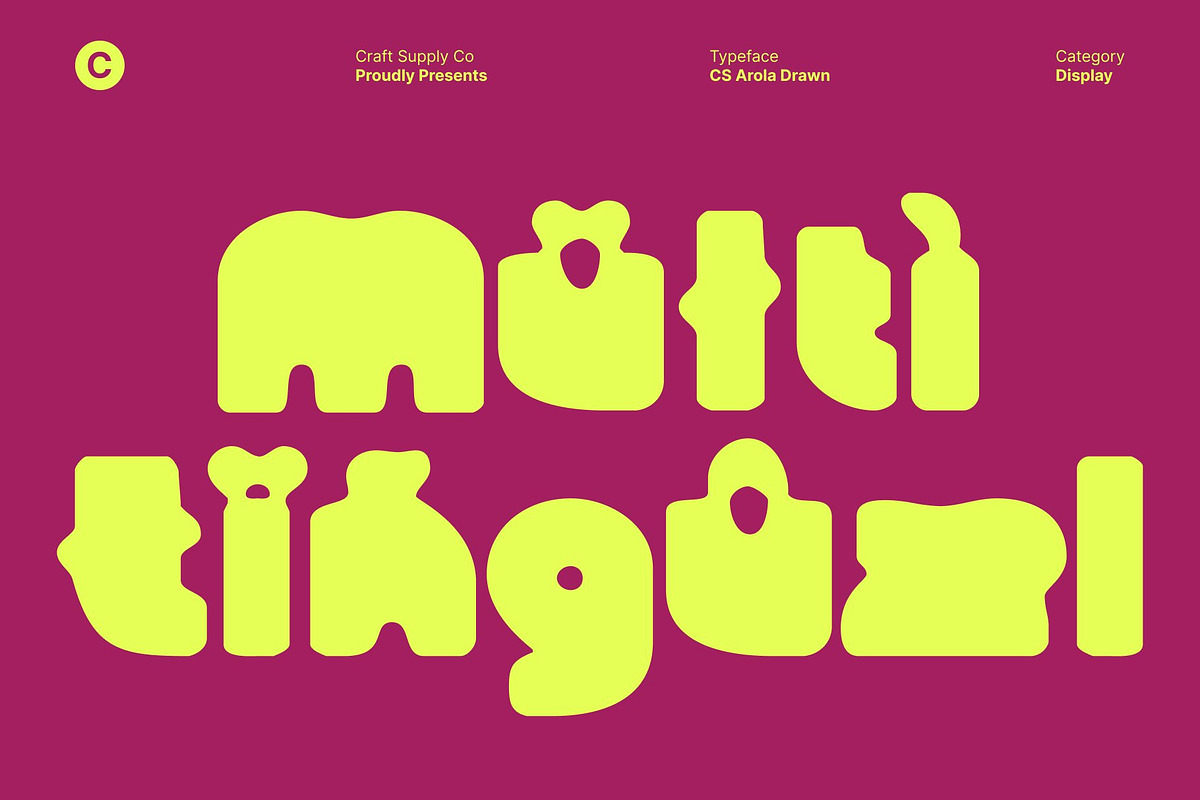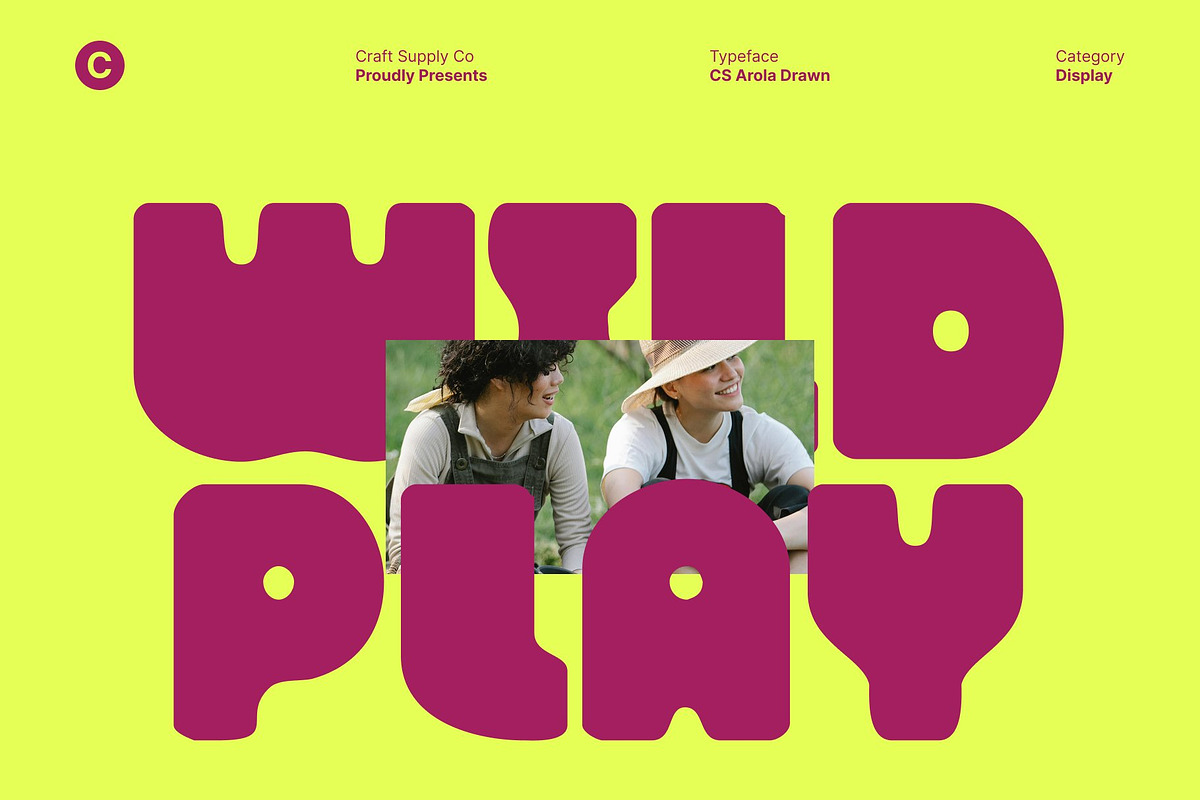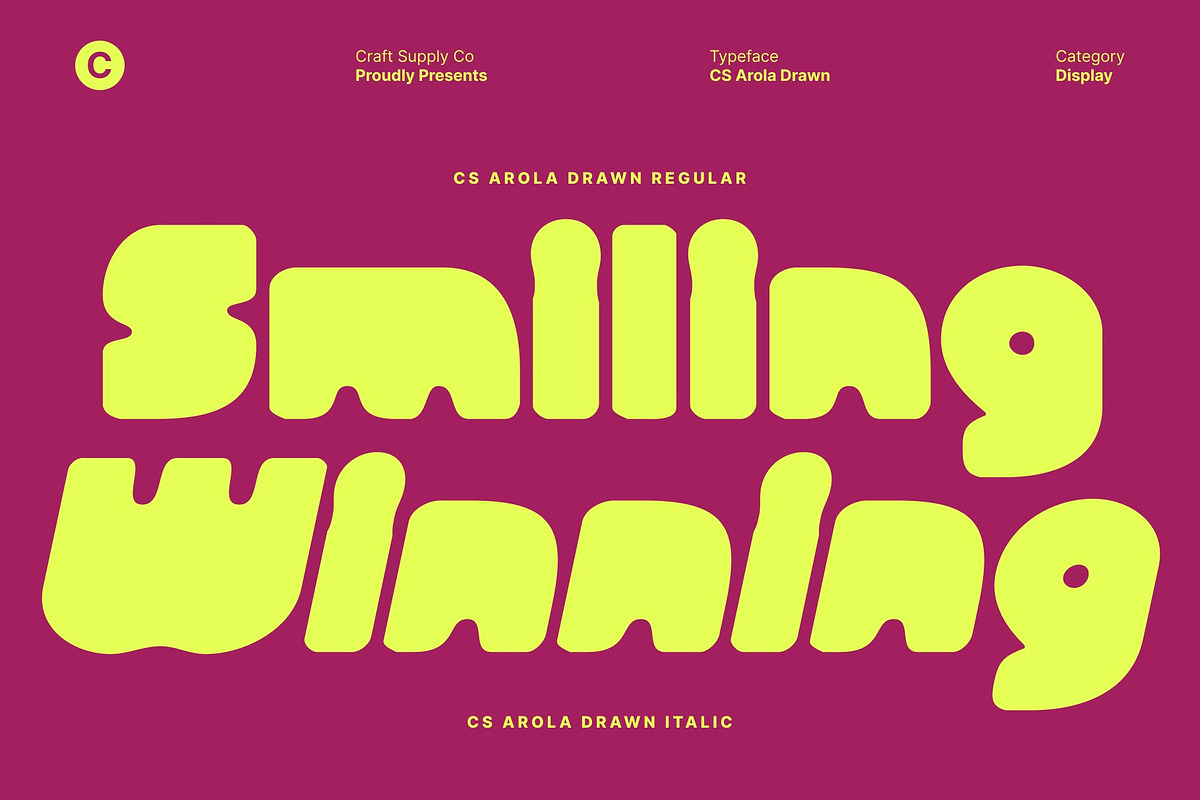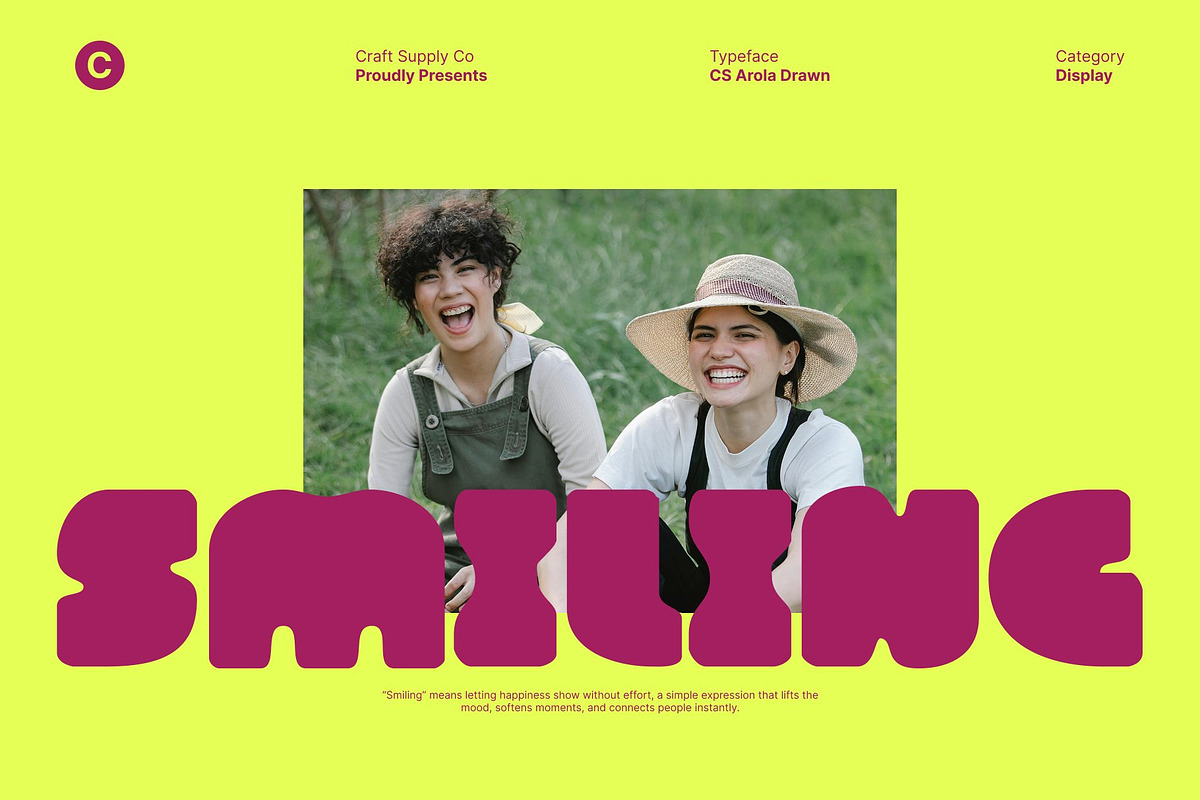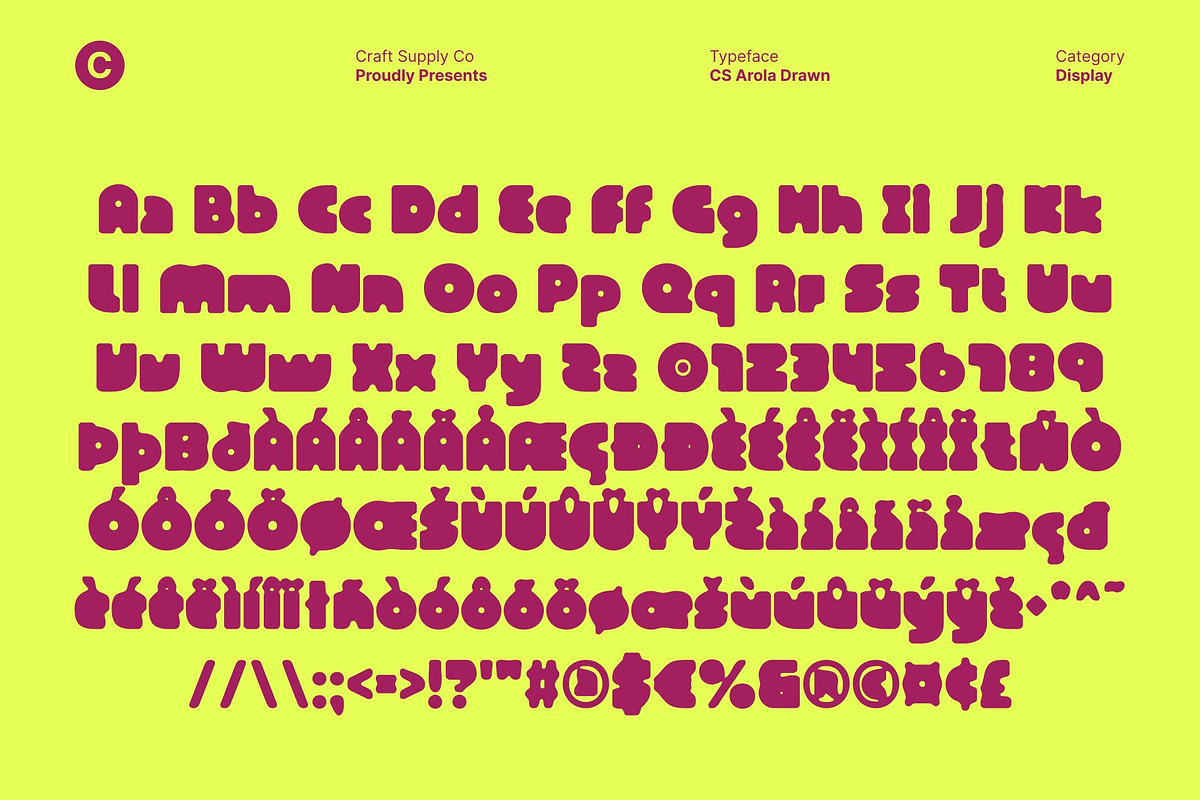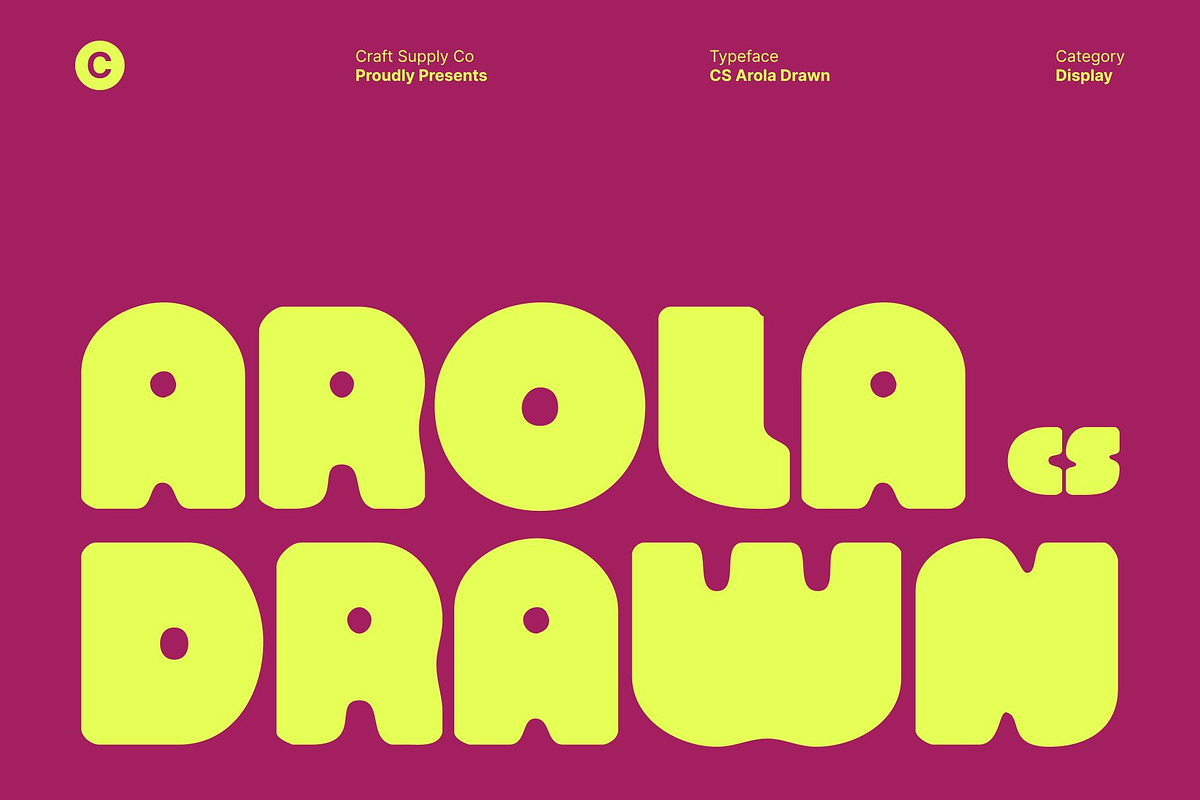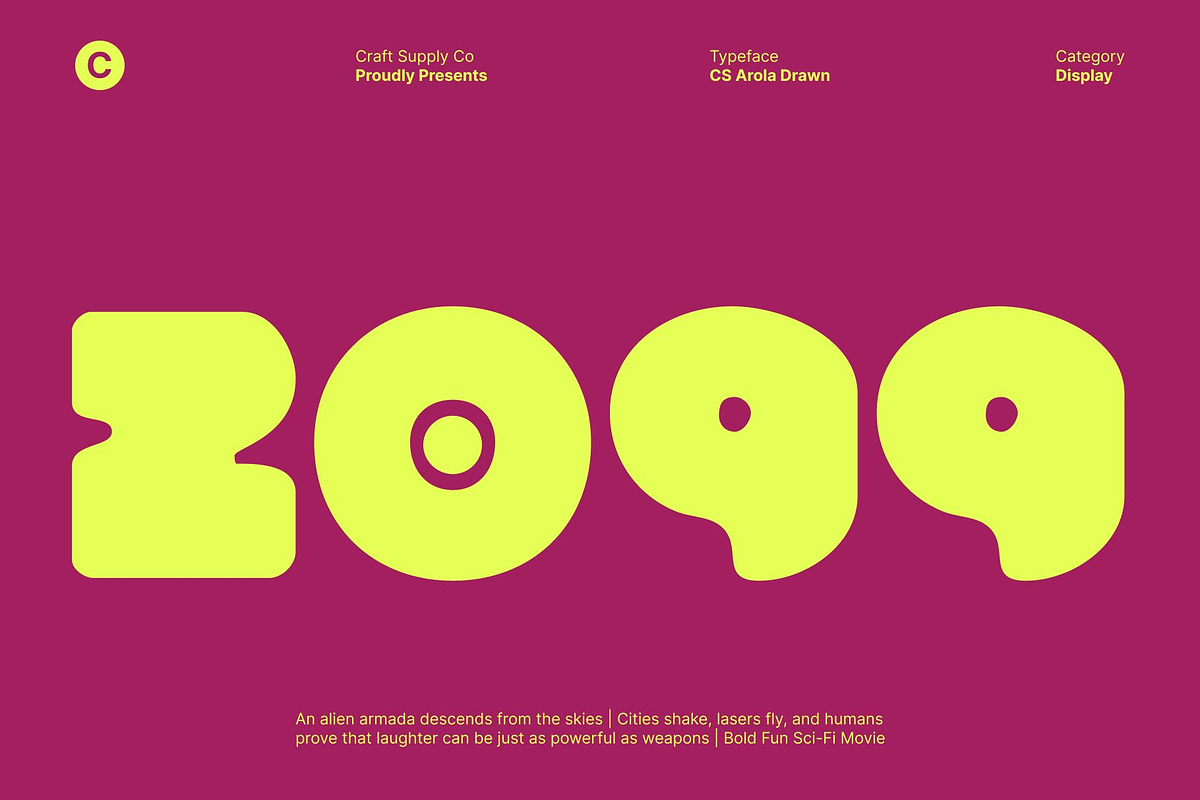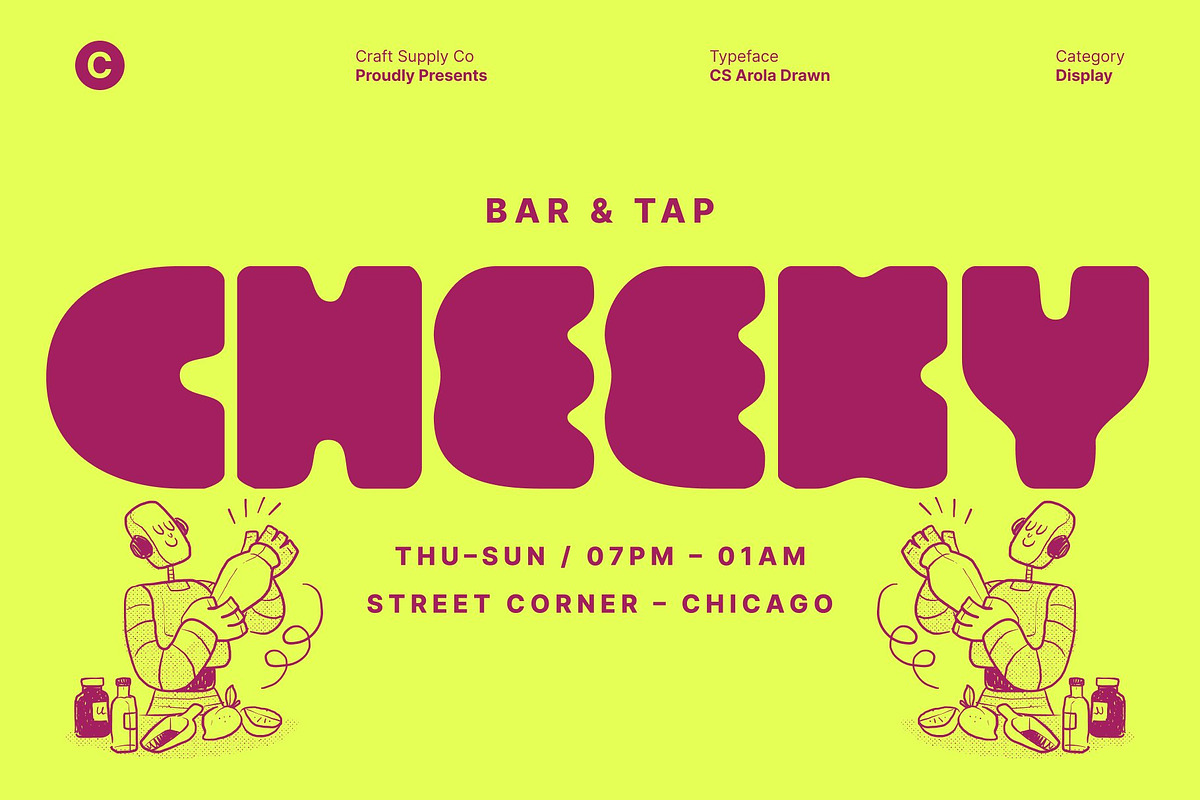
CS Arola Drawn
CS Arola Drawn – Bold Display Font: Soft Strength with Funky Confidence
Chunky Drawn Bold Display Font This is a bold display font that blends confident strength with a soft, approachable attitude. Built with chunky letterforms and generous weight, this font delivers instant visual impact while still feeling friendly and expressive. The drawn texture adds a natural, handcrafted touch, giving the font warmth and personality without losing its bold presence.
Funky Shapes with Playful Personality What truly sets this font apart is its funky and expressive construction. The rounded, chunky shapes create rhythm and movement across words, resulting in a lively and playful appearance. These fun proportions bring joy and visual excitement, making the font feel modern, youthful, and confident.
Bold Weight Balanced with Soft Appeal Despite its heavy and confident weight, this font maintains a soft and welcoming feel. The balanced structure and smooth curves prevent the font from feeling harsh or overwhelming. This contrast between power and softness creates a visually engaging experience that remains comfortable to read, even at large sizes or from a distance.
Ideal for Expressive and Impactful Branding This font shines in headlines, posters, packaging, social media graphics, and bold branding projects. Its chunky presence and drawn character make it perfect for creative campaigns, playful brands, and expressive visuals that want to feel confident, modern, and memorable.
- CS Arola Drawn Regular
- CS Arola Drawn Italic